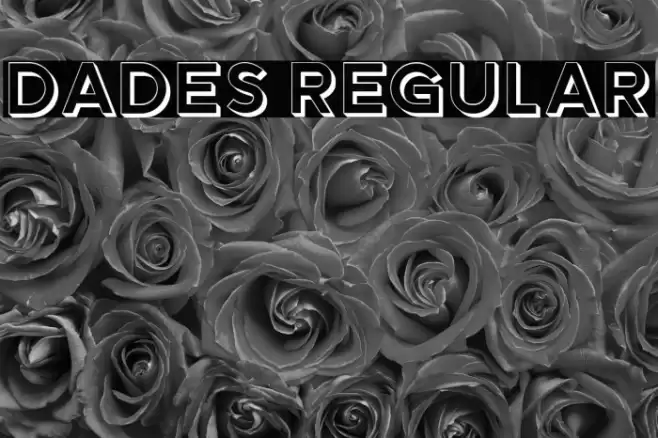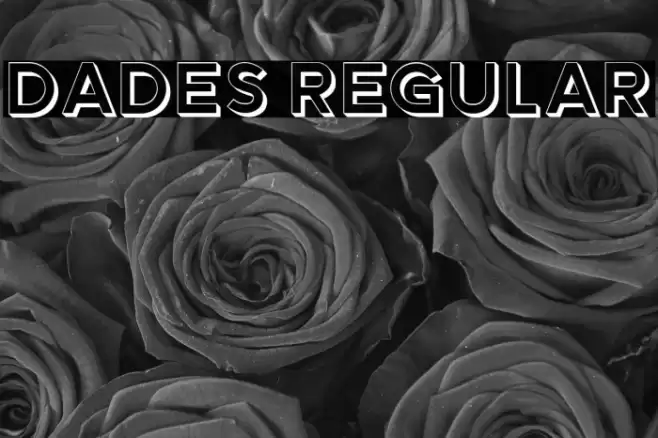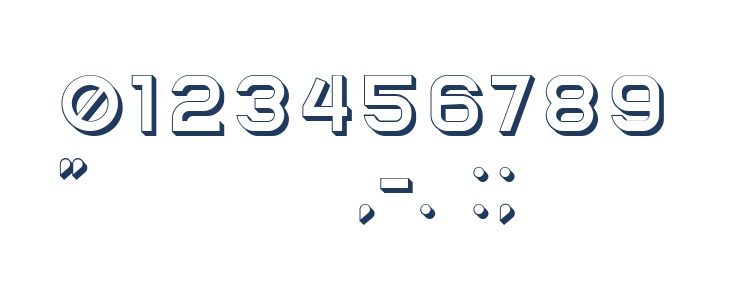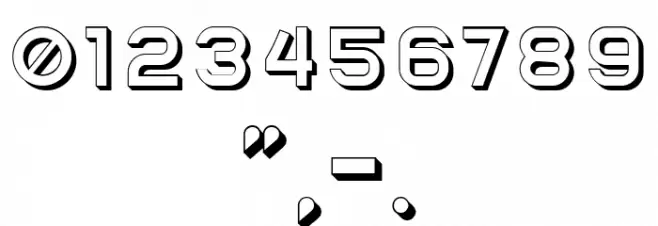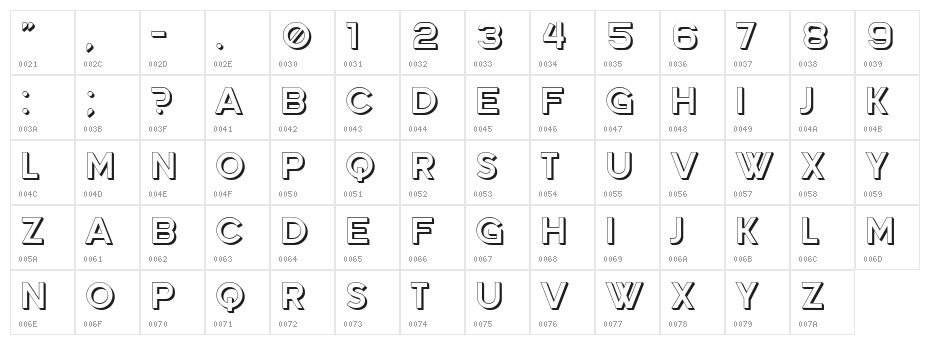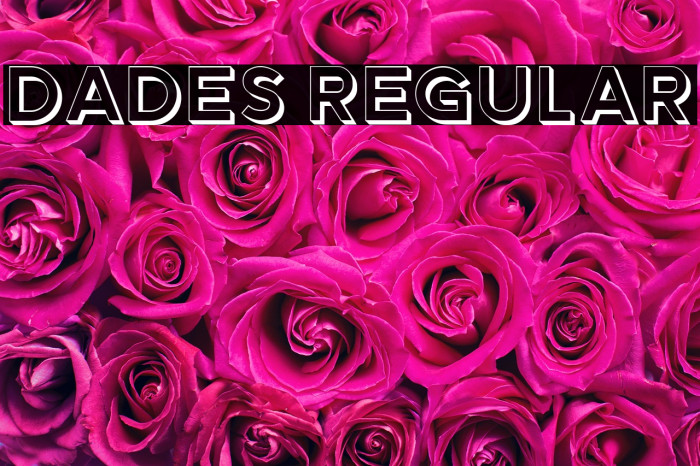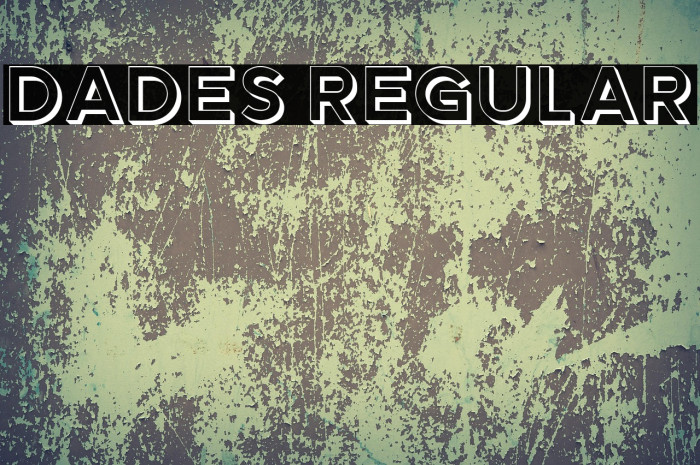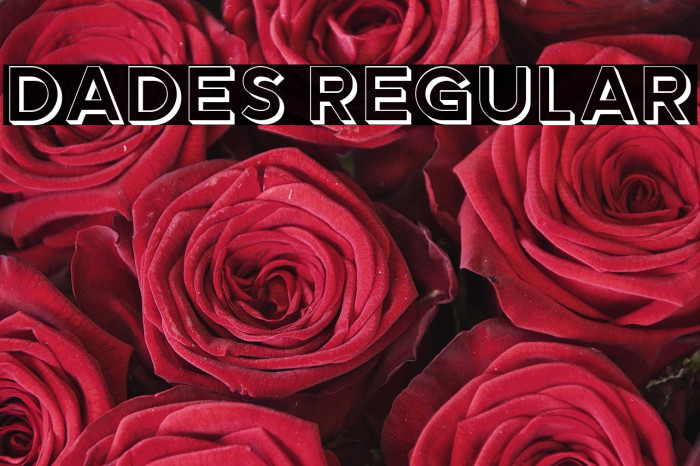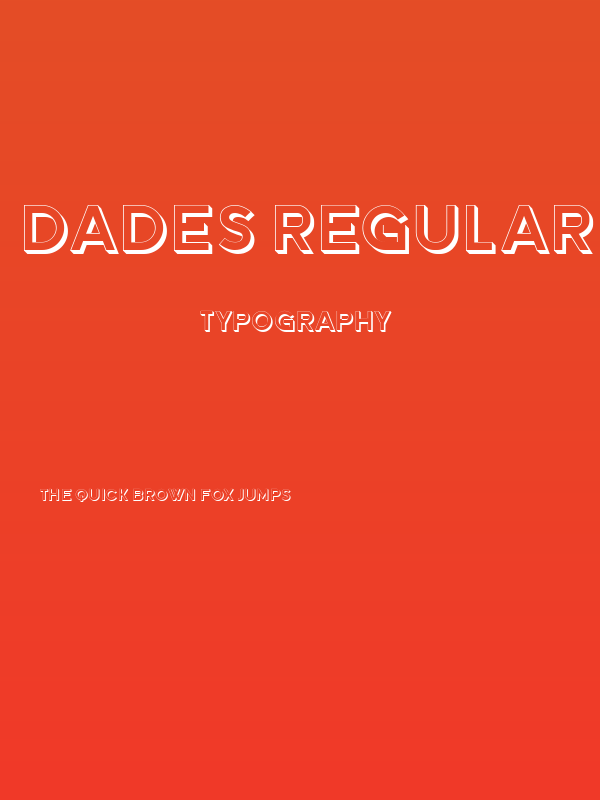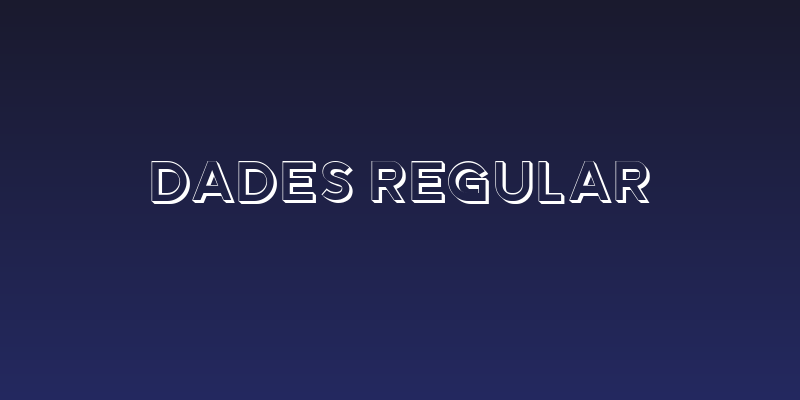
Dades Regular Font
Dades Regular Description
This font features a bold, geometric design with a modern twist. The characters are outlined, giving them a three-dimensional appearance that stands out on the page. The uppercase letters are uniform in height, with clean lines and sharp angles, creating a sense of precision and clarity. The numbers and special characters follow the same stylistic approach, ensuring consistency across all elements. The font's unique style makes it suitable for projects that require a contemporary and eye-catching look.
A bold, geometric font with a modern, outlined design from Uncategorized fonts.